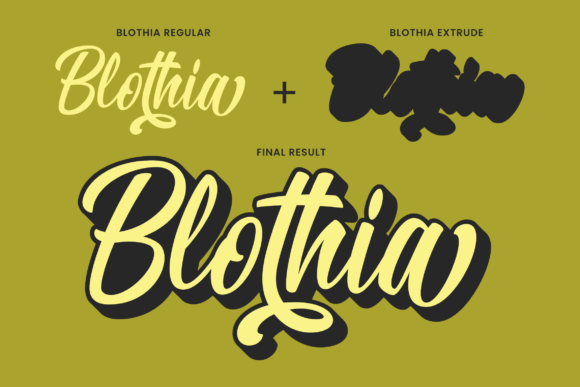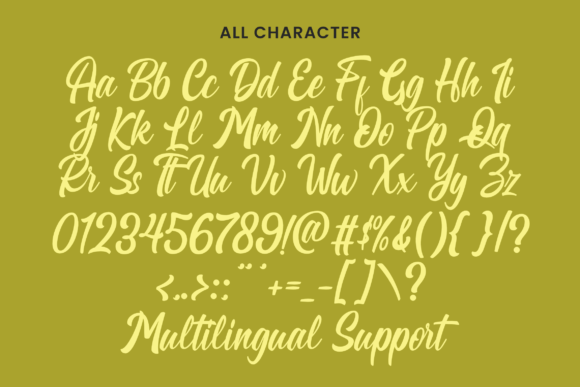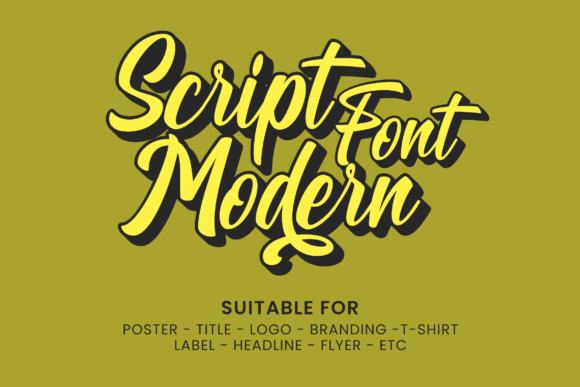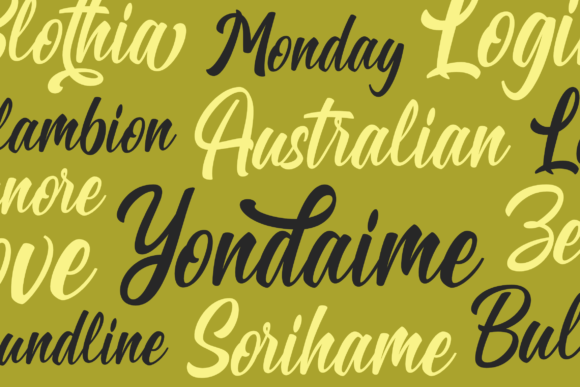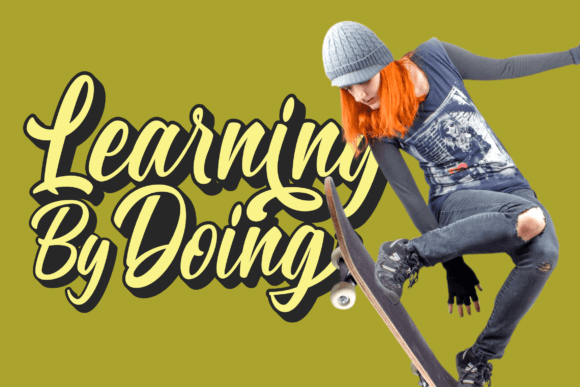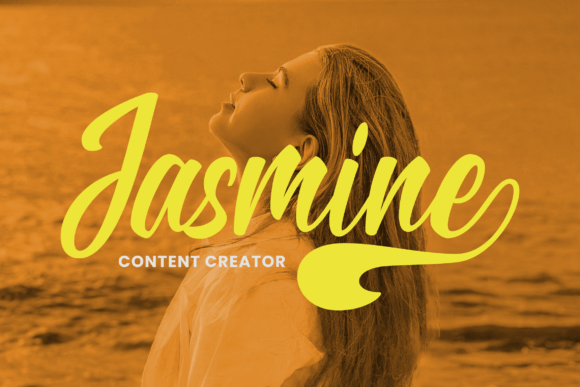
Introducing Blothia Font: Unleash Your Creativity with this Dynamic Brush Script Font
Are you a designer or crafter looking for a unique and striking font to elevate your creative projects? Look no further than Blothia Font, a brush script font that exudes a dynamic and energetic style. With its versatility and wide range of applications, Blothia is the perfect addition to your font collection.
What is Blothia Font?
Blothia Font is a brush script font that boasts a distinctive and eye-catching style. Its dynamic and energetic feel makes it perfect for designs that require a bold and attention-grabbing approach. Whether you’re working on a title, signature, logotype, or any other design that needs a unique touch, Blothia Font is the ideal choice.
Uses of Blothia Font
One of the best things about Blothia Font is its versatility. This font can be used for a wide range of purposes, including:
- Titles and headings: Add a touch of elegance and sophistication to your titles and headings with Blothia Font.
- Signatures: Create unique and personalized signatures that make a lasting impression.
- Logotypes: Develop a strong brand identity with a custom logotype designed using Blothia Font.
- T-shirt designs: Create eye-catching and stylish T-shirt designs that stand out from the crowd.
- Letterheads: Elevate your business correspondence with a professional and stylish letterhead designed using Blothia Font.
- Signage: Create attention-grabbing signage that effectively communicates your message.
- Labels: Design labels that are both functional and visually appealing.
- Newsletters: Add a touch of personality to your newsletters with Blothia Font.
- Posters: Create striking posters that grab attention and leave a lasting impression.
- Badges: Design custom badges that are both stylish and effective.
Why Choose Blothia Font?
So why should you choose Blothia Font for your design projects? Here are just a few reasons:
- Unique and striking style: Blothia Font boasts a distinctive and eye-catching style that sets it apart from other fonts.
- Versatility: This font can be used for a wide range of purposes, making it a valuable addition to your font collection.
- Ease of use: With PUA encoding, you can easily access all of the glyphs and swashes, making it simple to customize your designs.
- Time-saving: Having a wide range of glyphs and swashes at your fingertips saves you time and effort, allowing you to focus on the creative aspects of your design.
In conclusion, Blothia Font is a dynamic and energetic brush script font that is perfect for designers and crafters looking to add a unique touch to their creative projects. With its versatility, PUA encoding, and striking style, Blothia Font is an excellent choice for a wide range of design applications. Whether you’re working on a title, signature, logotype, or any other design, Blothia Font is sure to make a lasting impression.